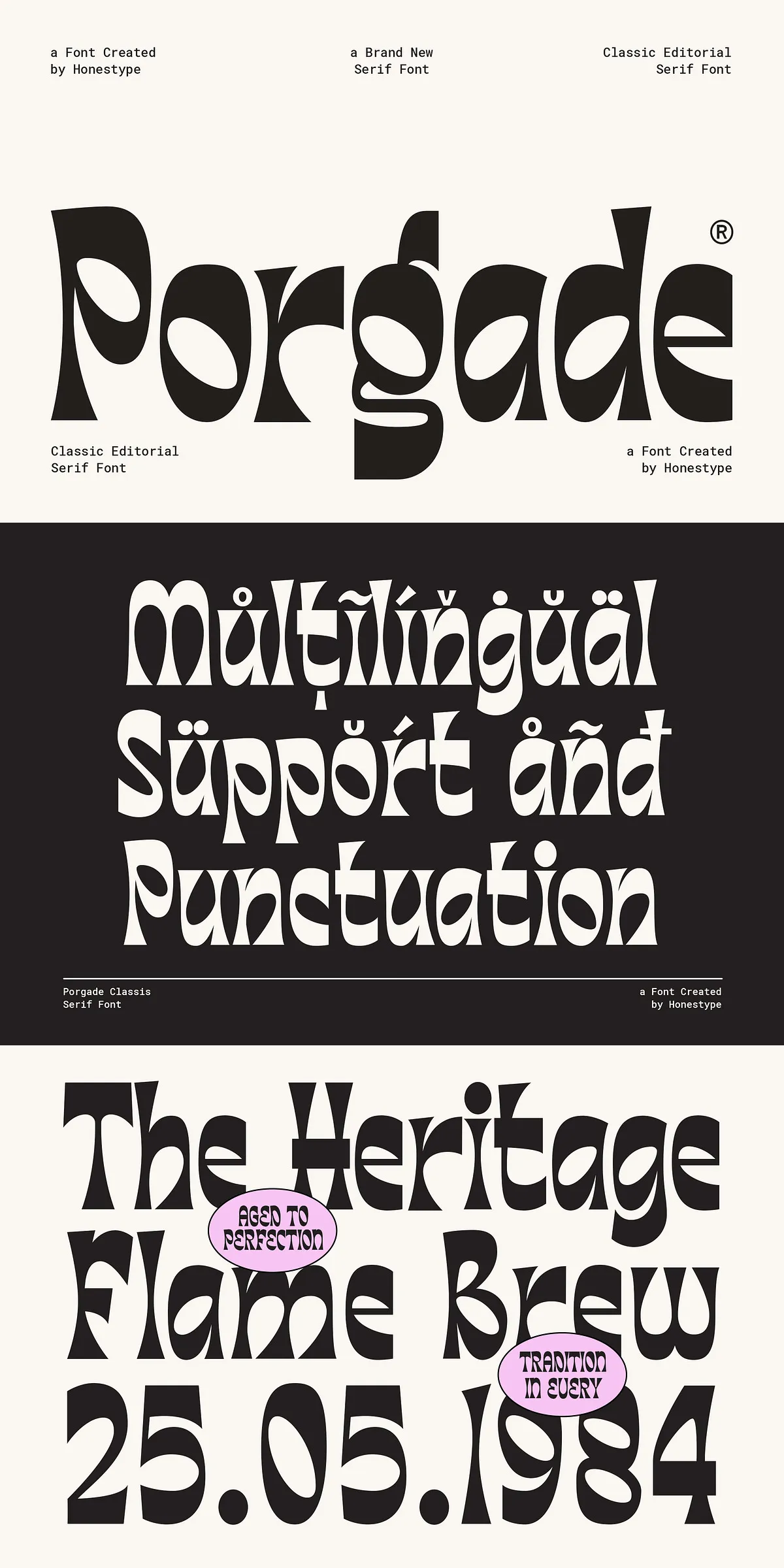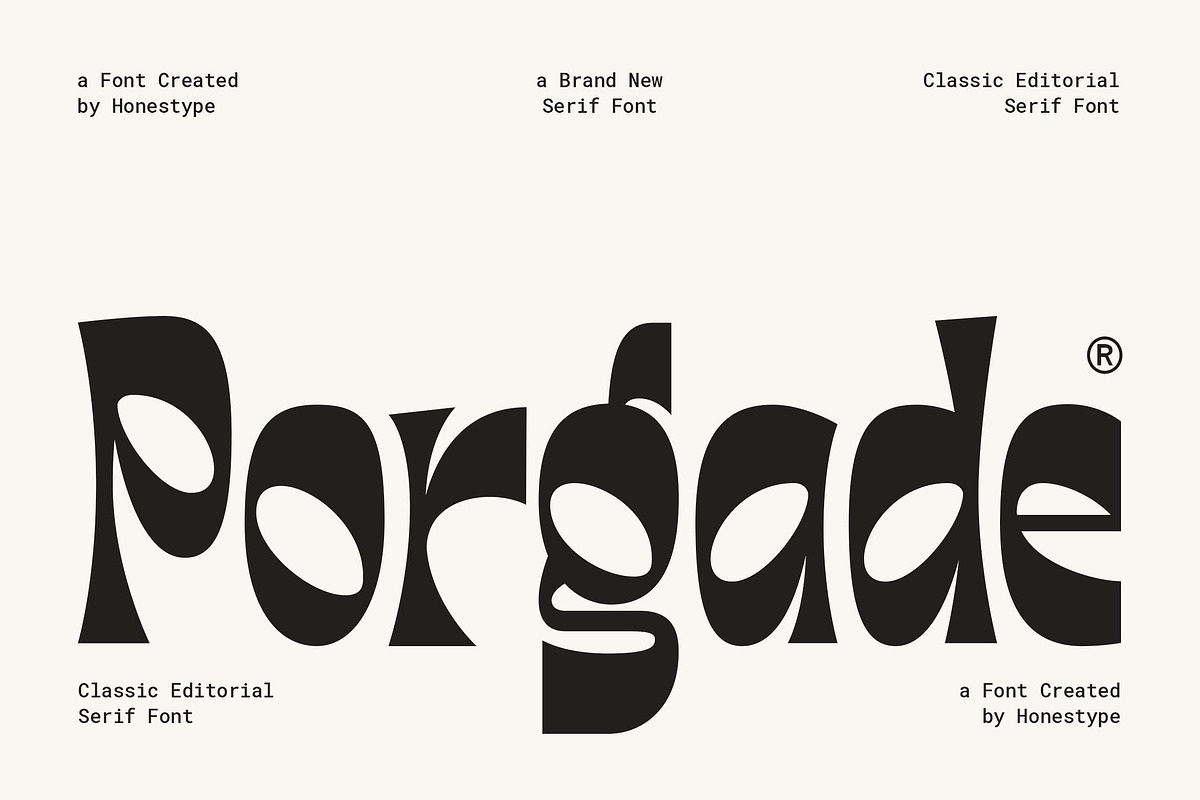
Porgade – Classic Editorial Serif
Porgade stands out as a distinctive editorial serif font, masterfully merging classic sophistication with strikingly expressive, unconventional letterforms. This typeface draws its rich inspiration from the golden age of vintage publishing, the timeless elegance of heritage branding, and the pioneering artistic typography of the mid-century era. The result is a font that delivers a powerful visual identity while steadfastly maintaining its inherent elegance and exceptional readability.
Unleash the Power of Expressive Design
What truly sets Porgade apart are its high-contrast shapes, dramatic curves, and uniquely crafted counters. These elements converge to create an unforgettable presence, ensuring that every headline you craft feels refined, stylish, and brimming with character. Porgade doesn’t just display text; it transforms it into an artistic statement that commands attention and leaves a lasting impression on your audience.
Versatility for a Myriad of Creative Ventures
Whether your project demands the sophisticated layouts of editorial design, the impactful presence of luxury branding, the intricate details of packaging, the visual punch of posters, or the distinctiveness of creative identity projects, Porgade is your ultimate typographic partner. It effortlessly brings a timeless yet undeniably contemporary aesthetic, ensuring your work stands out with unparalleled ease. This font is a true chameleon, adapting to various design contexts while retaining its unique charm and impact.
Inspired by Timeless Eras
Porgade’s design roots delve deep into the rich history of typography. Its inspiration from vintage publishing ensures that it carries an air of authority and tradition, while the influence of heritage branding imbues it with a sense of enduring quality. The nods to mid-century artistic typography provide that unexpected twist, making it both familiar and fresh. This blend of historical influences makes Porgade a font that resonates across generations and design sensibilities.
Crafted for the Discerning Creative
Porgade is meticulously designed for creatives who constantly seek typography that transcends the ordinary. It offers a flawless balance between the revered traditions of classic serif fonts and the exciting possibilities of experimental visual expression. This font empowers designers to push boundaries, to tell stories not just with words, but with the very shape and feel of the text itself. It’s a testament to the idea that typography can be both functional and profoundly artistic.
Perfect For an Array of Design Applications
The inherent versatility of Porgade makes it an indispensable tool for a wide range of design disciplines:
• Editorial Design: Elevate your magazine spreads, newspaper layouts, and digital articles with a touch of classic elegance.
• Magazine Headlines: Craft headlines that captivate and engage, drawing readers deeper into your content.
• Luxury Branding: Develop sophisticated logos, packaging, and marketing materials that exude exclusivity and prestige.
• Fashion Branding: Infuse your fashion labels, campaigns, and lookbooks with a sense of high-end style and artistic flair.
• Logo Design: Create memorable and impactful logos that stand the test of time, reflecting the unique essence of any brand.
• Packaging Design: Design packaging that communicates quality and luxury, enticing consumers with its refined aesthetic.
• Book Covers: Give your book covers a distinctive and alluring appearance, promising a captivating reading experience.
• Posters: Produce stunning posters that grab attention and convey your message with clarity and artistic merit.
• Advertising: Develop compelling advertisements that leverage Porgade’s unique character to leave a lasting impression.
• Social Media Graphics: Create engaging and shareable social media content that reflects a professional and artistic brand image.
• Vintage Branding: Perfectly capture the essence of bygone eras with a font that feels both authentic and contemporary.
• Creative Projects: For any project where you desire typography that is both classic and creatively expressive, Porgade is your ideal choice.